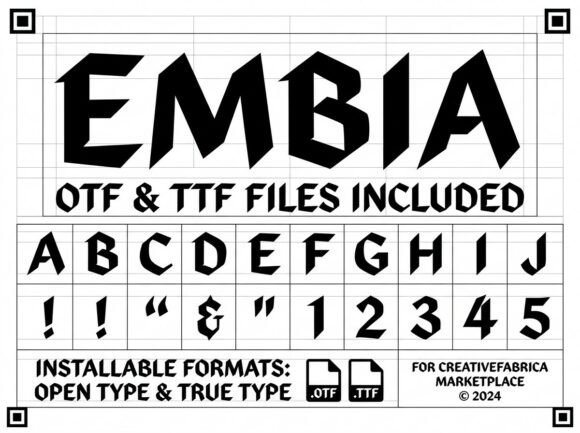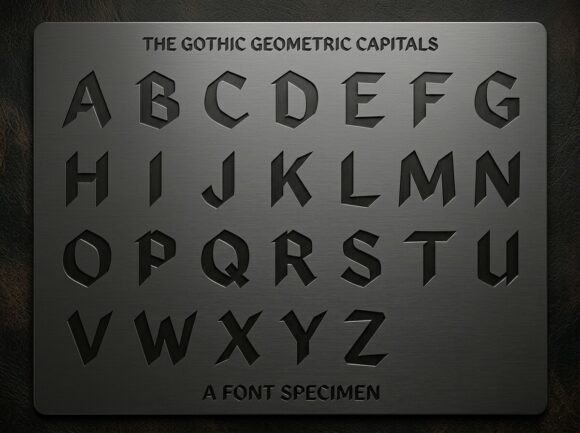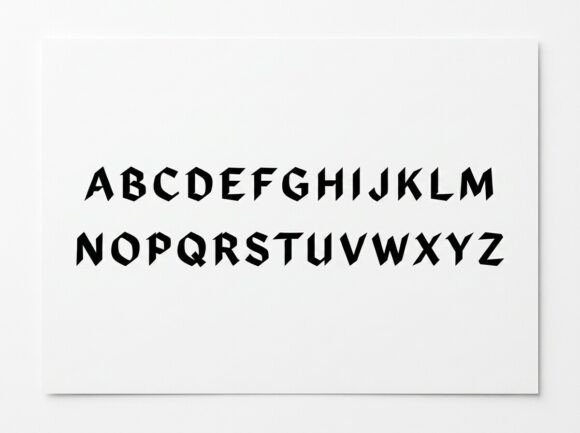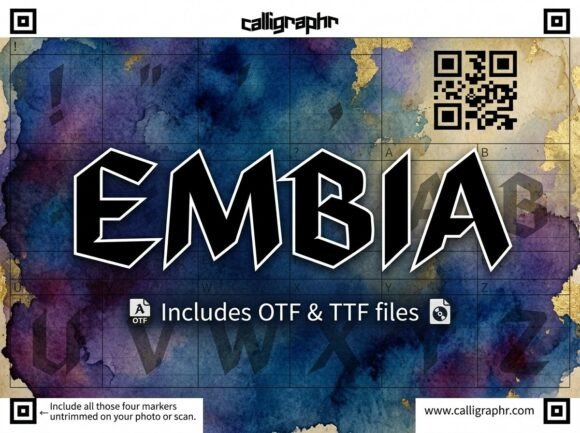
Unleash the Power of Embia Font: Command Attention with Aggressive Precision
In the world of typography, fonts play a crucial role in conveying the tone and personality of a brand. For designers and crafters looking to make a bold statement, Embia Font is an exceptional choice. This sharp geometric font is designed for high-impact visual communication, exuding an unyielding power that demands attention. With its bold, blackletter-influenced letterforms, Embia is perfect for heavy metal branding, competitive gaming logos, edgy streetwear, and dark-themed cinematic headers.
The Anatomy of Embia Font
Embia’s design is characterized by razor-sharp angles, heavy structural stems, and a massive visual weight that gives it an industrial silhouette. The font’s bold, blackletter-influenced letterforms are reminiscent of traditional craftsmanship, while its rhythmic, chiseled terminals add a touch of sophistication. The result is a typeface that radiates a sense of handcrafted danger and professional, artisanal strength.
Key Features of Embia Font
- Bold and Blackletter-Influenced: Embia’s letterforms are inspired by traditional blackletter fonts, but with a modern twist. The bold lines and sharp angles give it a unique and aggressive look.
- Razor-Sharp Angles: The font’s sharp angles and geometric shapes create a sense of precision and edginess, perfect for brands that want to convey a sense of intensity.
- Heavy Structural Stems: Embia’s heavy stems give it a solid and sturdy feel, making it perfect for headlines and titles that need to stand out.
- Rhythmic, Chiseled Terminals: The font’s terminals are designed to resemble chiseled stone, adding a touch of sophistication and elegance to the overall design.
Use Cases for Embia Font
Embia Font is an extraordinary choice for a variety of design projects, including:
- Heavy Metal Branding: Embia’s aggressive and bold design makes it perfect for heavy metal bands, music festivals, and related merchandise.
- Competitive Gaming Logos: The font’s sharp angles and geometric shapes make it ideal for gaming logos, esports teams, and related branding.
- Edgy Streetwear: Embia’s bold and edgy design makes it perfect for streetwear brands, fashion labels, and related marketing materials.
- Dark-Themed Cinematic Headers: The font’s dramatic and intense design makes it perfect for movie titles, cinematic headers, and related visual effects.
Why Choose Embia Font?
Embia Font offers a unique combination of style, personality, and versatility. Here are just a few reasons why designers and crafters should consider Embia for their next project:
- Legendary Personality: Embia delivers a sense of handcrafted danger and professional, artisanal strength to every word, ensuring your headlines stand out with a legendary personality.
- High-Impact Visual Communication: The font’s bold design and aggressive precision make it perfect for high-impact visual communication, grabbing attention and conveying a sense of intensity.
- Professional and Artisanal: Embia’s design combines professional and artisanal elements, making it perfect for brands that want to convey a sense of expertise and craftsmanship.
In conclusion, Embia Font is an exceptional choice for designers and crafters looking to make a bold statement. With its aggressive precision, sharp geometric design, and bold, blackletter-influenced letterforms, Embia is perfect for a variety of design projects, from heavy metal branding to competitive gaming logos. Whether you’re looking to convey a sense of intensity, professionalism, or artisanal craftsmanship, Embia Font is sure to deliver.